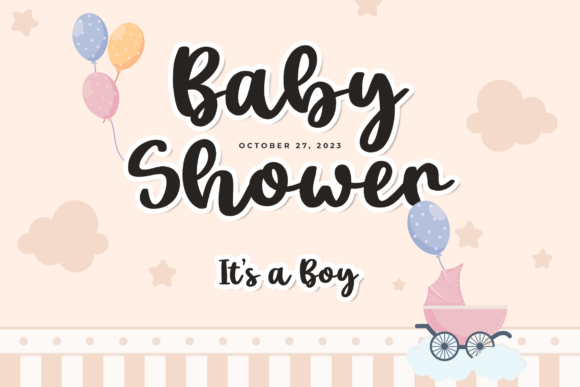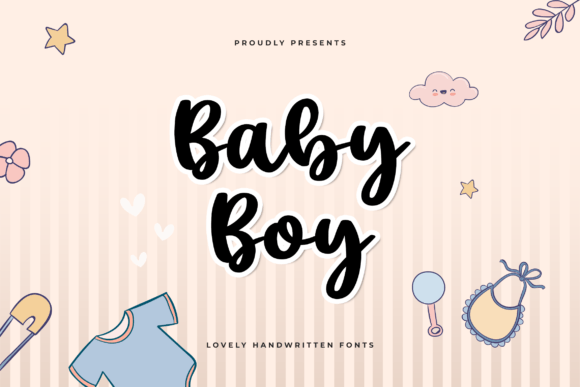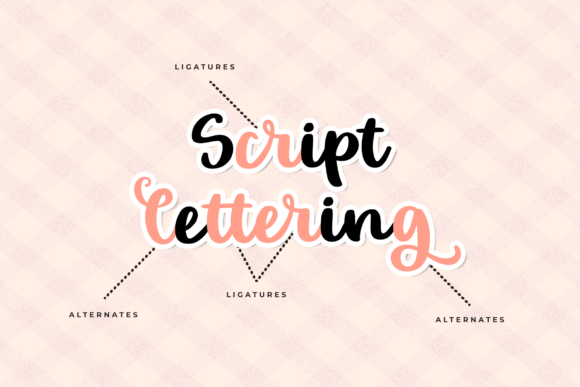
Introduction to Bread Lovely Font
Bread Lovely is a cute handwritten script font that can add a touch of whimsy and charm to any design project.
It’s perfect for quotes, shirt designs, websites, branding, children’s designs, blogs, logos, invitations and more .
Key Features of Bread Lovely Font
Why Choose Bread Lovely Font?
Bread Lovely Font offers exceptional quality and versatility, making it a valuable addition to your design toolkit. Whether you’re creating for personal projects or commercial use, Bread Lovely Font delivers professional results.